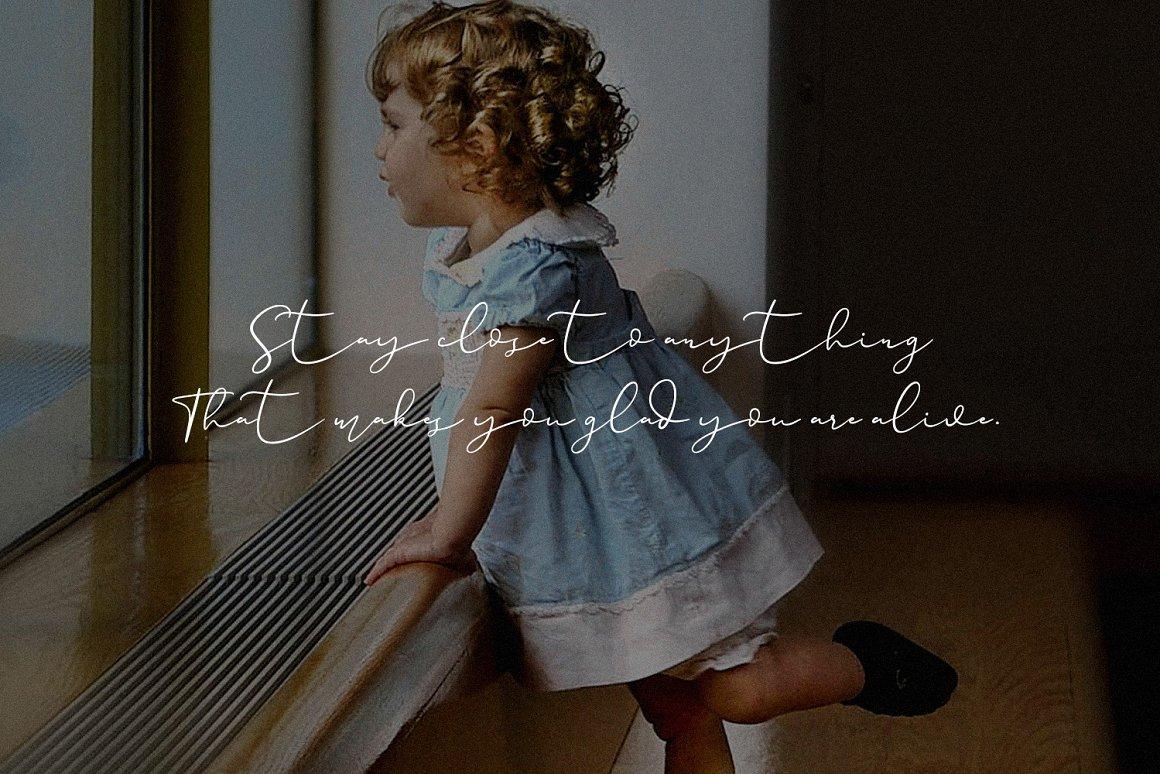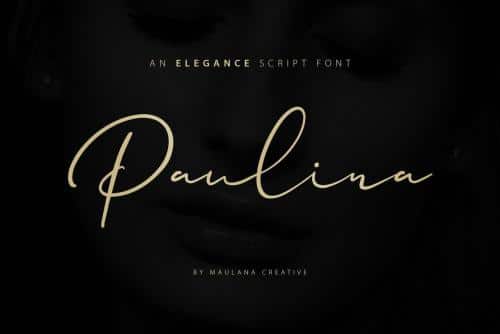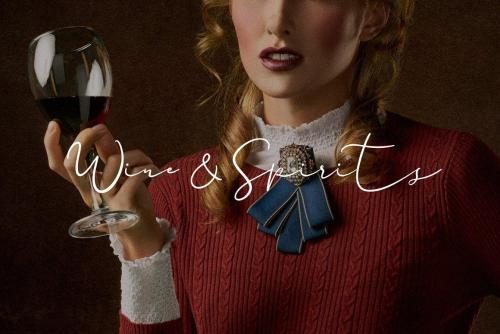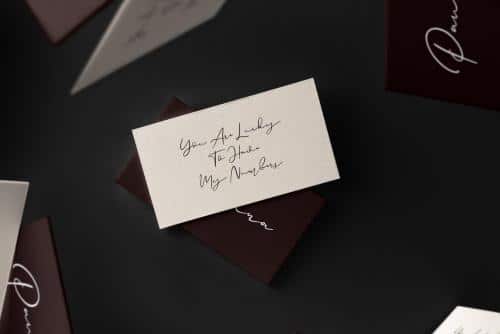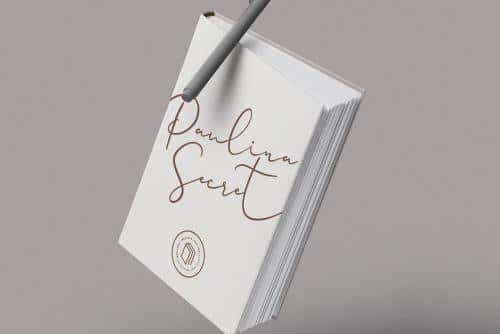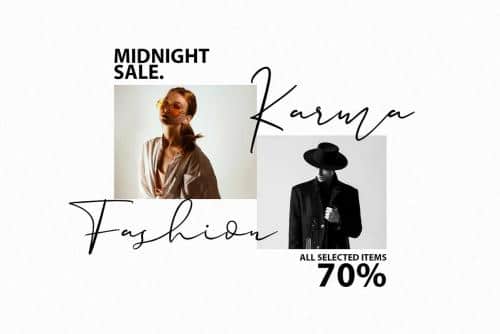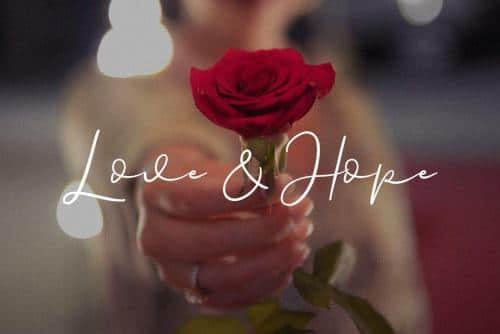
Paulina Elegance Script Font is a luxurious signature typeface. This is a handwritten script font with a Signature Style and classy style, this font is great for your creative projects.
Give your designs an authentic handcrafted feel. “Paulina Script” is perfectly suited to signature, stationery, logo, typography quotes, magazine or book cover, website header, clothing, branding, packaging design and more.